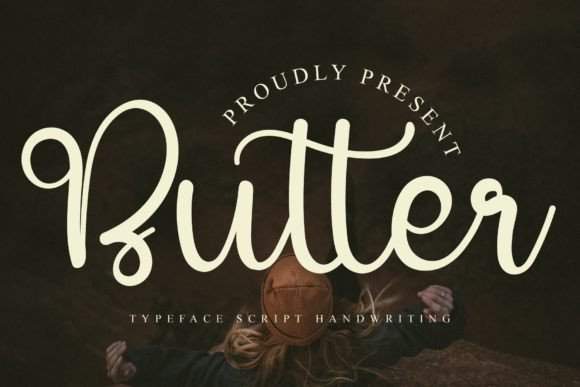
The Perfect Blend of Style and Substance
Have you ever sat down with a blank canvas, a blank sheet of paper, or a blank screen, and felt a surge of creative energy course through your veins? The possibilities seem endless, and the excitement is palpable. For designers, this moment is a thrilling opportunity to bring their vision to life.
That’s where the Butter Font comes in – a stylish handwritten font that embodies the perfect blend of classic elegance and modern flair. Designed to elevate the beauty of your projects, this font is the perfect companion for creatives who crave a touch of sophistication and whimsy. With its balanced and varied forms, the Butter Font is an invaluable asset for designers looking to add a unique and captivating element to their work.
Key Features of Butter Font
- Unique Characteristics: The Butter Font features a unique, handwritten design with subtle imperfections, giving it a personal and friendly feel.
Designer Review: Butter Font
Butter Font is a unique and quirky typeface that catches the eye. I think what works well about it is the ✨ playful and carefree vibe it exudes. The font is perfect for creating eye-catching headlines or titles for projects that need a bit of whimsy. The font’s irregular shapes and varying letter heights add a sense of personality and character that can be really effective in the right context.
Another strength of Butter Font is its ✨ versatility. It can be used in a wide range of projects, from digital design to print materials, and still hold its own. I’ve seen it used in logo designs, posters, and even social media graphics with great success.
While Butter Font has a lot going for it, there are a few things to keep in mind:
- ⚠️ The font can be a bit overwhelming if used in large blocks of text. It’s best to use it sparingly and in combination with other fonts.
- ⚠️ The font’s irregular shapes can make it difficult to read for some users, especially those with vision impairments.
In conclusion, Butter Font is a fun and playful typeface that can add a lot of character to a design. While it may not be suitable for every project, it’s definitely worth considering for projects that need a bit of whimsy and personality. With its versatility and unique aesthetic, Butter Font is a great addition to any designer’s toolkit.
Practical Application Guide for “Butter Font”
The “Butter Font” is ideal for use in designs that require a touch of elegance and sophistication, such as:
- Wedding invitations
Alternatives to “Butter Font” for Designers
Montserrat is a clean and modern sans-serif font that is highly legible in digital formats. It is ideal for use in headings and titles, and works well for a wide range of design projects. Compared to Butter Font, Montserrat is more geometric and has a more technical feel, making it a great choice for tech and startup branding.
Playfair Display is an elegant and luxurious serif font that is perfect for adding a touch of sophistication to your designs. It is ideal for use in high-end branding, invitations, and other projects where a sense of refinement is desired. Compared to Butter Font, Playfair Display is more ornate and has a more traditional feel, making it a great choice for projects that require a sense of history and tradition.